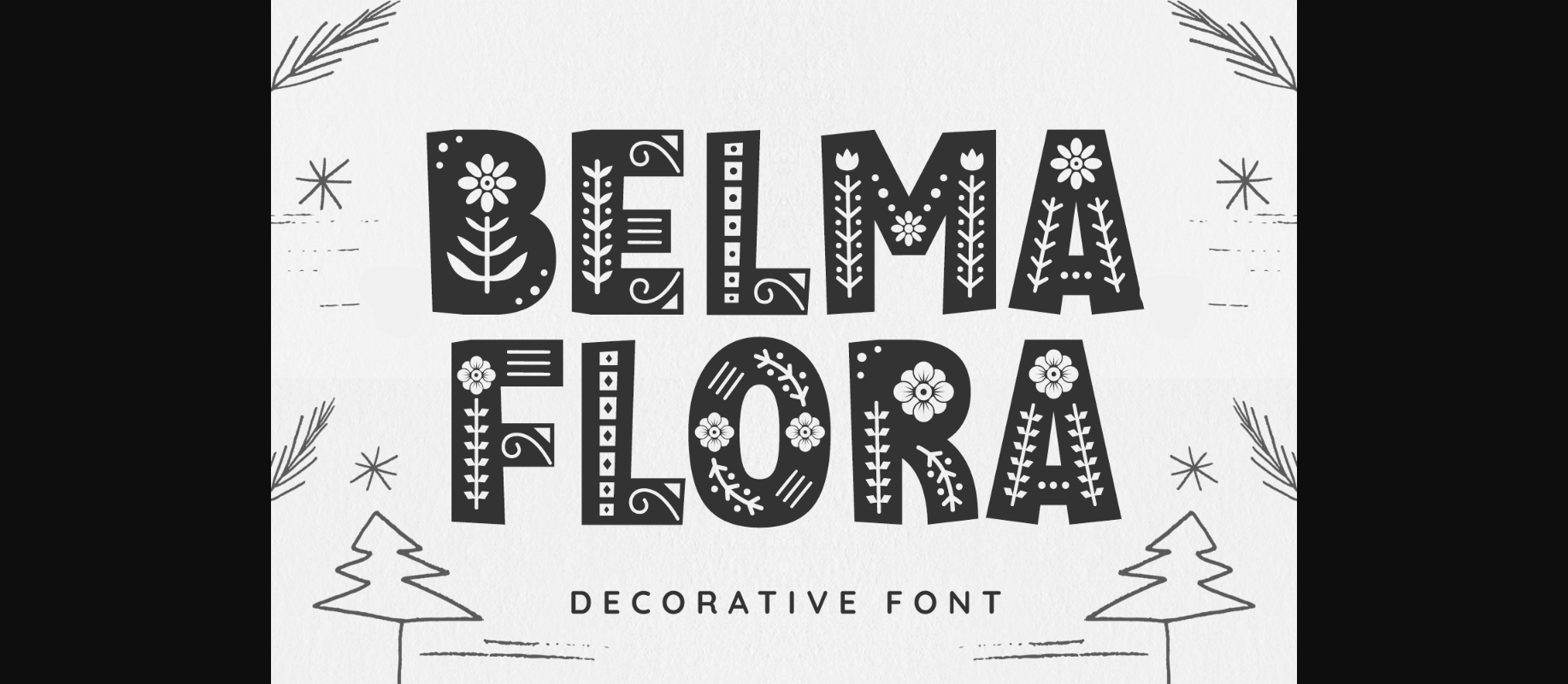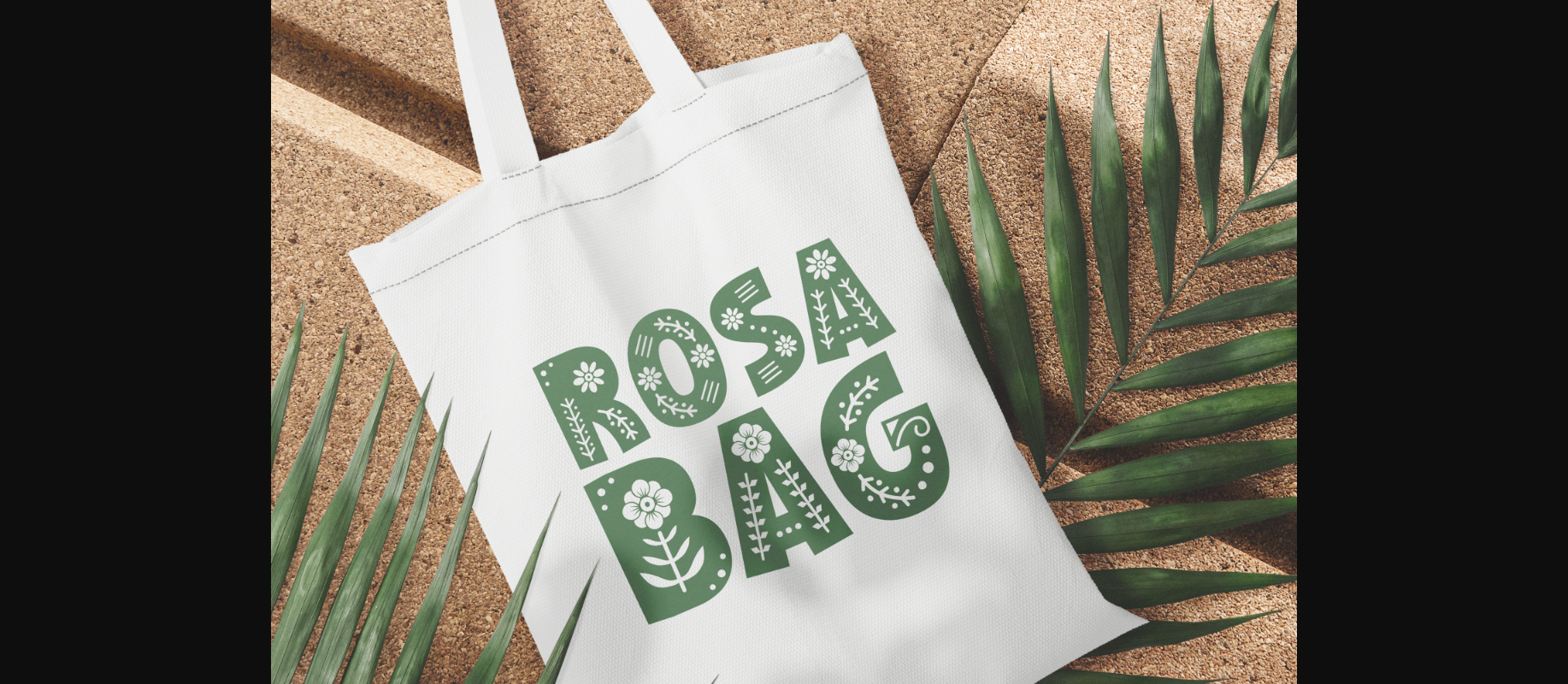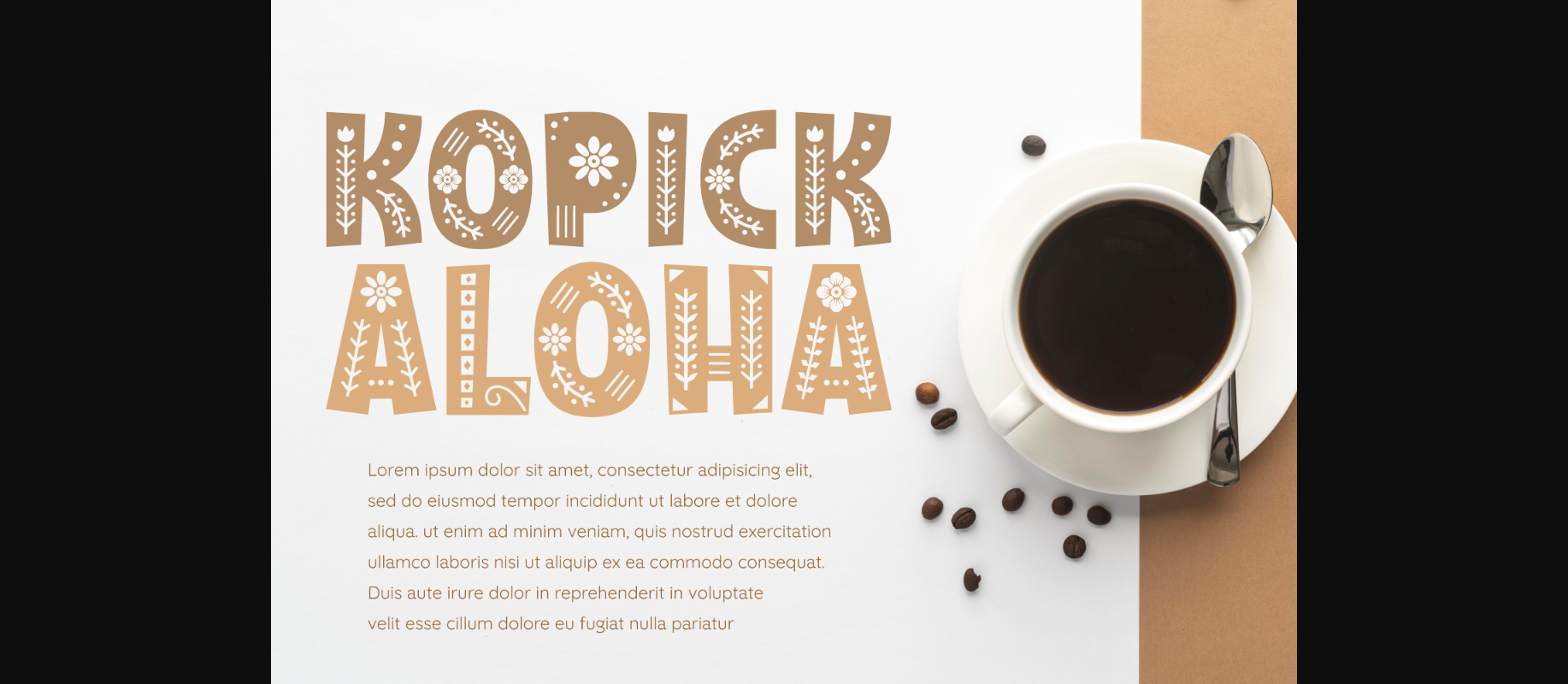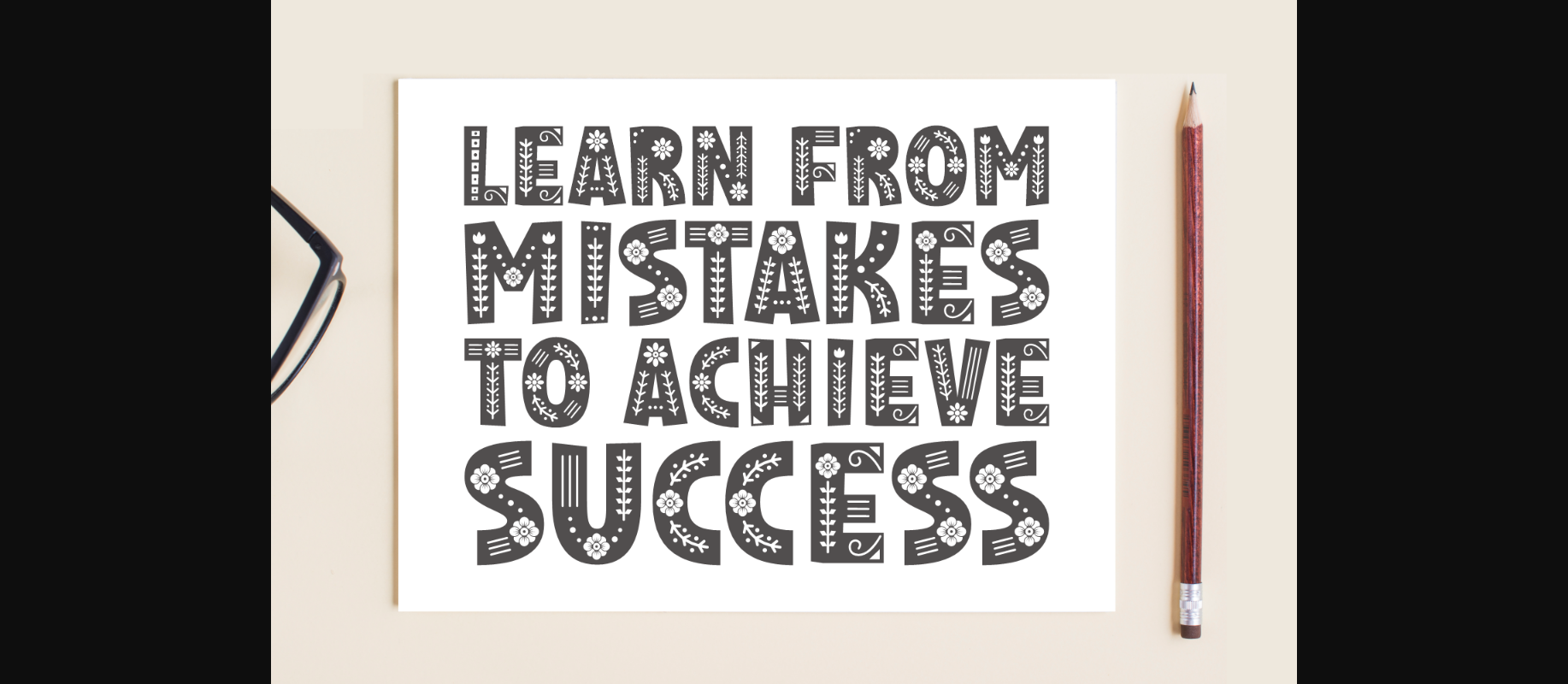
HomeDecorative FontsBelma Flora Font Decorative Fonts Belma Flora Font FacebookXPinterestWhatsApp 1 of 6 ... Belma Flora Font Poster 2... Belma Flora Font Poster 3... Belma Flora Font Poster 4... Belma Flora Font Poster 5... Belma Flora Font Poster 6... About Belma Flora Font Belma Flora is a bold and fresh decorative font. Its chubby characters have beautiful floral accents, perfect for creations that need a stunning appearance! DOWNLOAD NOW People also explored Salvatrice Black Font Hey Gadis Font Happy Summer Font Always Happy Font American Footballs Font Skinny Brown Font Single Floating Frame in White Raihan Font Friendship Font 348 0 TagsBelma Flora Font Previous articlePhotography FontNext articleBago Font LEAVE A REPLY Cancel reply Comment: Please enter your comment! Name:* Please enter your name here Email:* You have entered an incorrect email address! Please enter your email address here Website: Save my name, email, and website in this browser for the next time I comment. Personal Use Free Pouline Personal Use Free Read more about this font Tanpax Personal Use Free Read more about this font Karmatic Arcade Personal Use Free Read more about this font Andolas Personal Use Free Read more about this font BLOG Free Fonts Risk: Why Free Fonts Can Be Dangerous for Designers Free Fonts Risk: Why Free Fonts Can Be Dangerous for Designers Using free fonts is a common practice in web and graphic design. However, the... Exploring Font Trends Best Fonts for YouTube Videos: Make Your Thumbnails Stand Out Elegant Wedding Invitation Fonts – Handwritten & Script Fonts